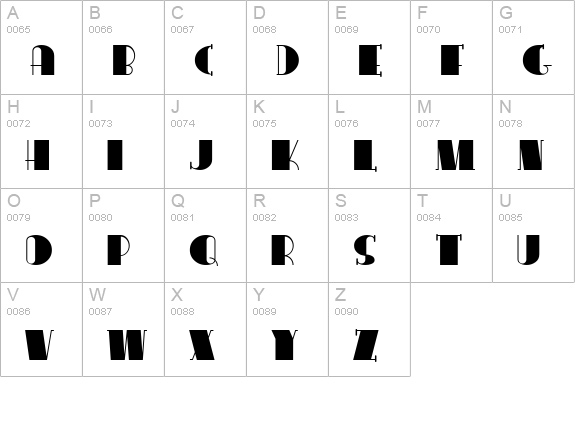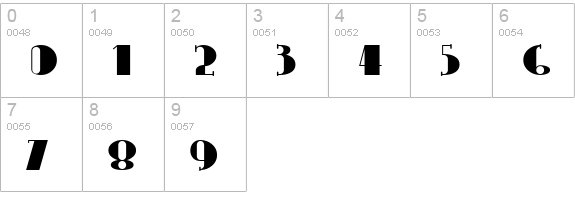
CongaLine Revised Font Details
CongaLine Revised font is a lively and dynamic typeface that brings a sense of movement and energy to any design. With its playful curves and rhythmic letterforms, this font is perfect for projects that need a touch of fun and celebration. Whether you're designing party invitations, event posters, or anything in between, CongaLine Revised will add a festive vibe to your creations. And the best part? This font is completely free to download at FontsMarket.com! So go ahead and bring the party to your designs with CongaLine Revised. Let your creativity flow and make your projects stand out with this vibrant and eye-catching font.